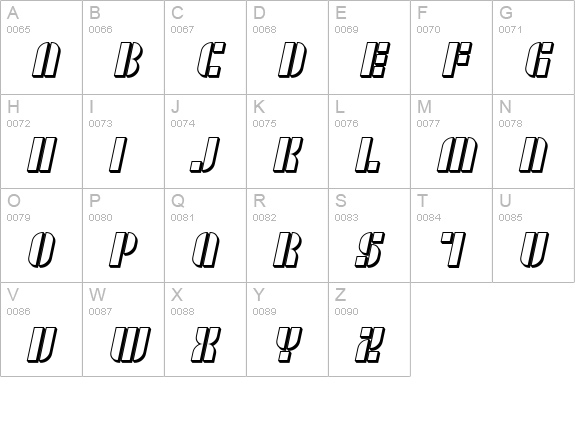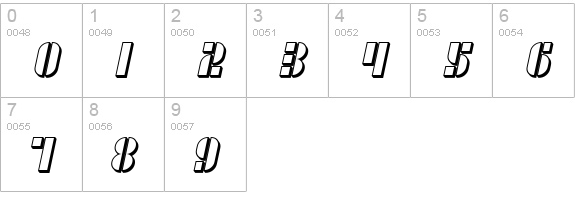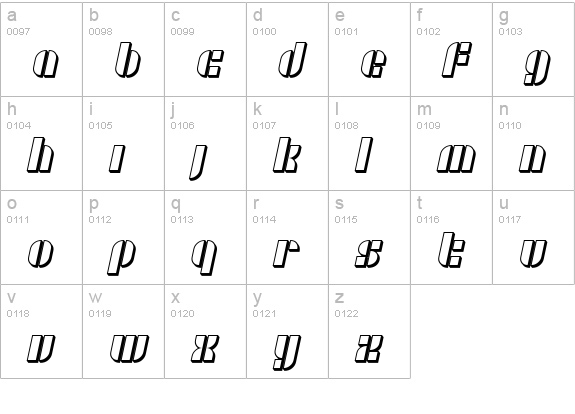
SF RetroSplice Shaded Font Details
SF RetroSplice Shaded is a captivating and stylish font that takes inspiration from the retro aesthetic of the past. With its unique blend of bold lines and intricate shading, this font captures the essence of a bygone era while still remaining fresh and modern. Perfect for adding a touch of nostalgia to any project, SF RetroSplice Shaded is sure to make a lasting impression. This font is designed with utmost care and attention to detail, ensuring each character is beautifully crafted. The shading adds depth and dimension, giving the letters a three-dimensional effect that jumps off the page. Whether you're designing a poster, creating a logo, or simply adding a vintage twist to your next creative endeavor, SF RetroSplice Shaded is the perfect choice. And the best part? SF RetroSplice Shaded is free! That's right, this incredible font is available to download at FontsMarket.com without any cost. We believe in providing accessible and high-quality resources for designers, and SF RetroSplice Shaded is no exception. So go ahead and unleash your creativity with this stunning font, knowing that it won't cost you a dime. With its versatility and undeniable charm, SF RetroSplice Shaded is the ideal font for anyone looking to add a touch of retro flair to their designs. Its distinct style and attention to detail make it stand out from the crowd, giving your projects a unique and memorable look. So don't miss out on this incredible opportunity – head over to FontsMarket.com now and download SF RetroSplice Shaded for free!